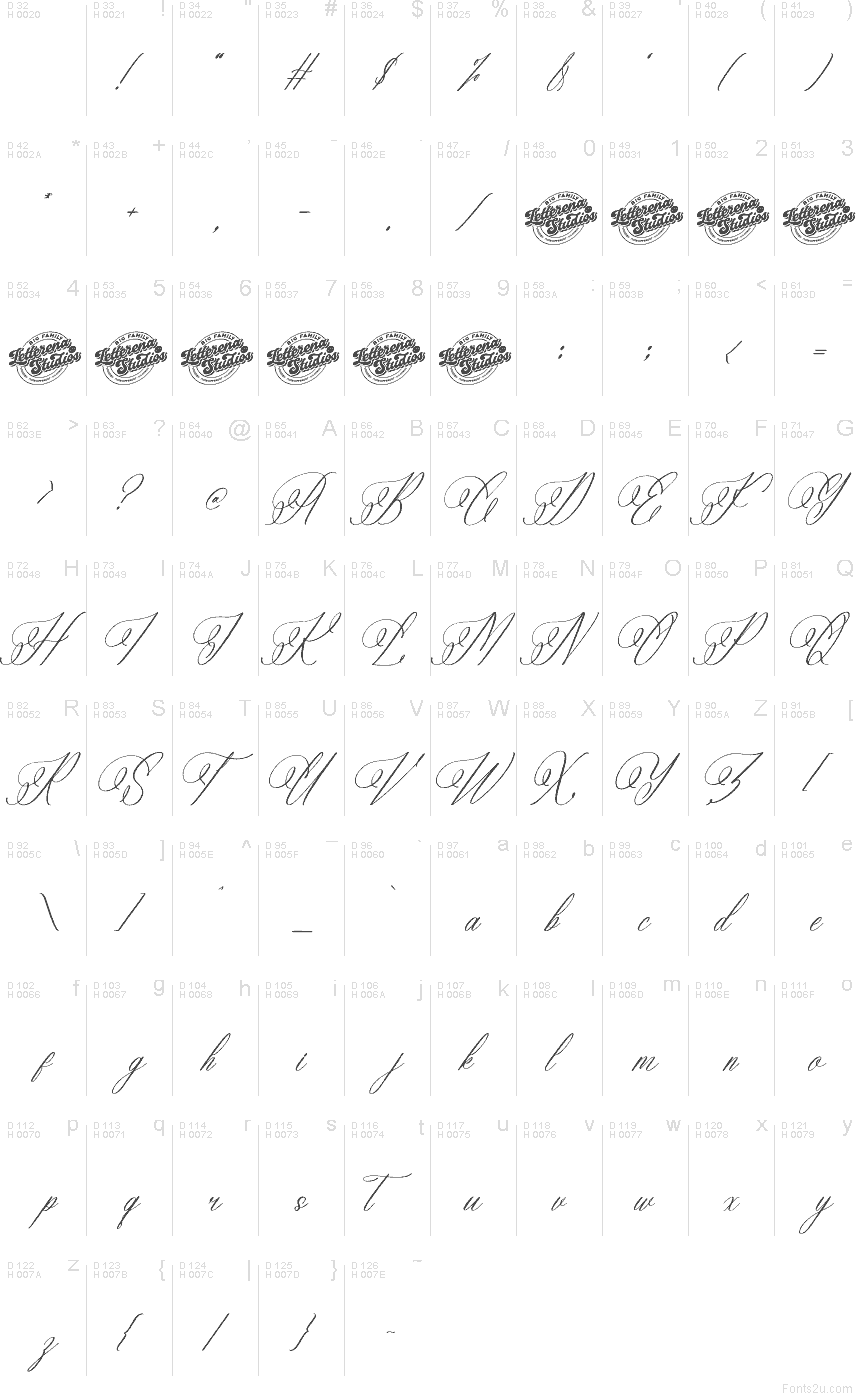
Eladorna Gladiota DEMO VERSION Italic
Eladorna Gladiota Italic font by Letterena Studios is a free calligraphy font that captures the look of a finely tipped ink pen gliding across smooth paper. Its long, sweeping flourishes and delicate loops feel airy yet controlled, giving every word a sense of ceremony and poise. The Eladorna Gladiota family here feels especially romantic, with a rhythm that pulls the eye gracefully from letter to letter.
Using Eladorna Gladiota Italic, you can give wedding invitations, save-the-dates, event programs, logos, packaging, certificates, and social media quotes a refined, handwritten glow. This free font shines when it’s given room to breathe—set it larger for names or key phrases—and it pairs beautifully with a clean sans serif typeface for supporting text.